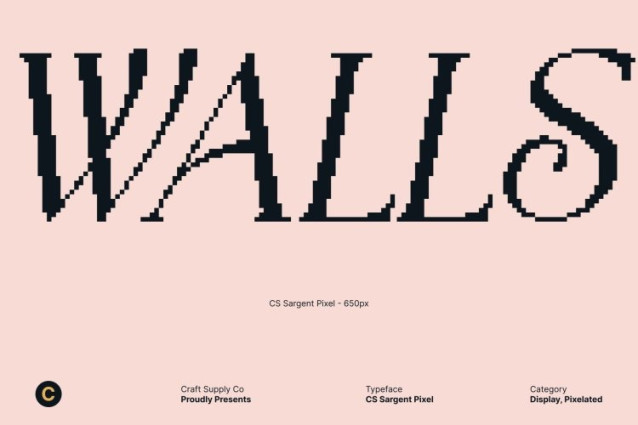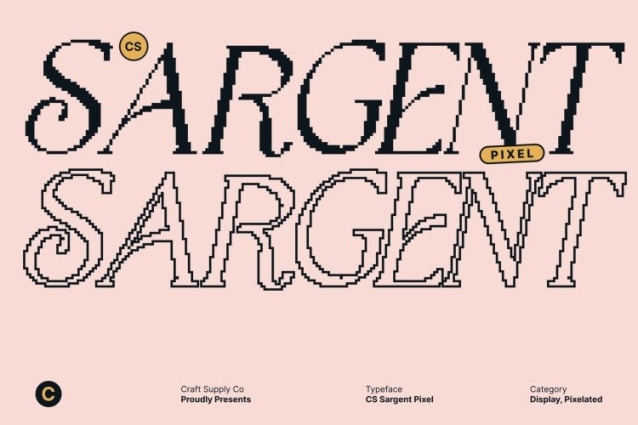
CS Sargent Pixel Font This draws inspiration from the timeless beauty of Art Nouveau, reimagined through a structured pixel form. Graceful curves and flowing organic lines are carefully translated into pixel-based shapes, preserving the decorative elegance of the era while giving the font a distinctive digital identity.
Handcrafted Elegance with Digital Texture
Enhanced with a subtle handmade character, this font carries a crafted charm that sets it apart from conventional serif fonts. The pixel construction adds texture and rhythm, giving each letter a sense of intentional design. This blend of artistic detail and pixel precision creates depth, authenticity, and a unique balance between human expression and digital structure.
Elegant Presence for Branding and Posters
With its flowing Art Nouveau influence and eye-catching pixel style, this font shines in branding, posters, and editorial layouts. Its refined silhouettes make logos, headlines, and visual statements feel sophisticated yet distinctive, especially in designs that aim to combine classic beauty with modern or retro-digital aesthetics.
Versatile Serif for Creative and Digital Expression
Beyond its Art Nouveau roots, adapts effortlessly to both creative and professional contexts. Ideal for luxury branding, cultural projects, artistic editorials, and digital or old-technology-inspired visuals, the font delivers elegance, clarity, and individuality. It is a perfect choice for designers seeking a serif font that feels ornamental, timeless, and uniquely pixel-driven.